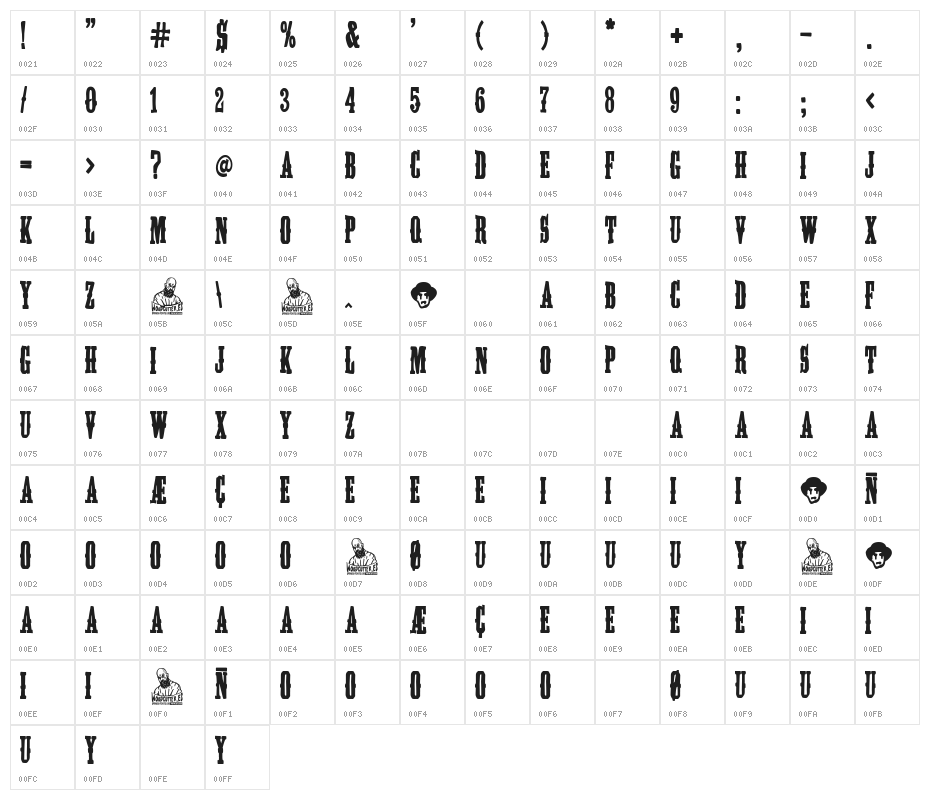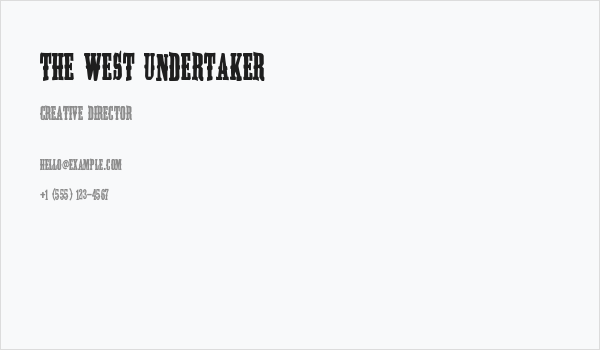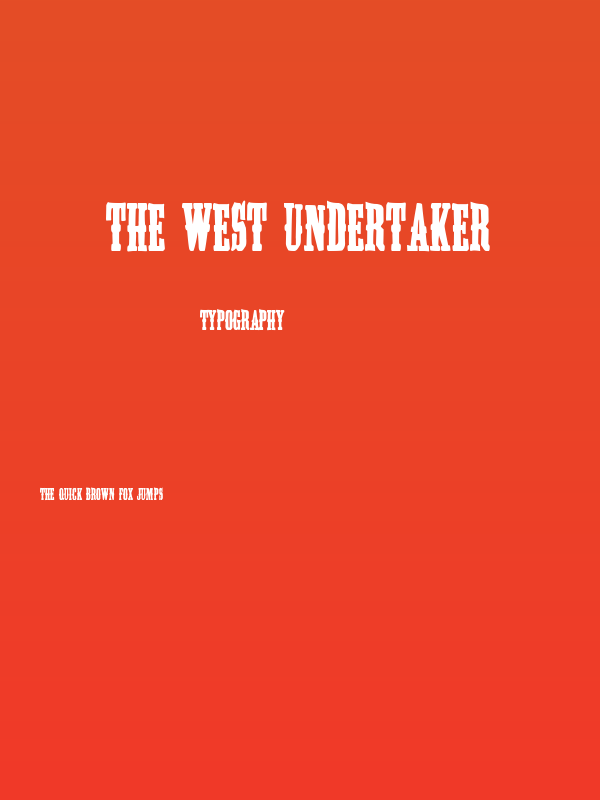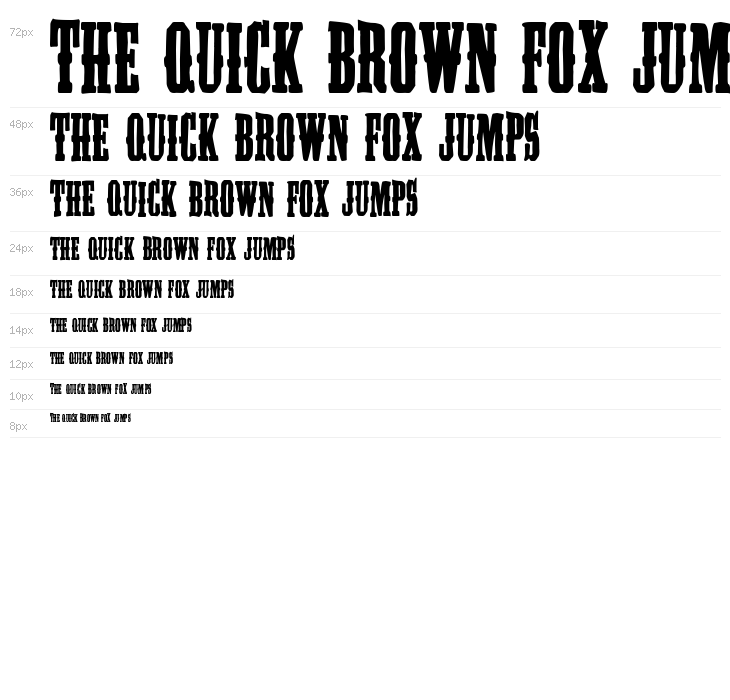
The West Undertaker Font
The West Undertaker Description
A bold, decorative display font with heavy slab serifs and irregular, distressed edges, evoking a vintage Wild West or circus poster style. The characters are tall and condensed, with high contrast between thick and thin strokes, and a rugged, hand-crafted appearance.
| Overall Style | Vintage, Decorative, Western |
| Proposed Projects | Posters, event flyers, signage, branding for Western or vintage-themed businesses, book covers, movie titles. |